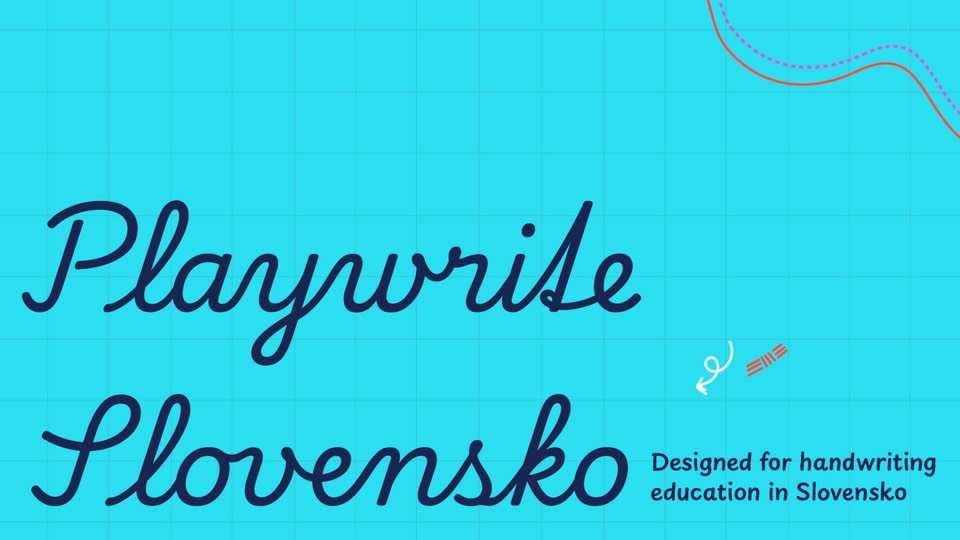
Download Playwrite font, a typeface that allows the creation of primary school cursive fonts. This slanted continuous cursive features medium to short extenders and is executed at a slow stroke speed.